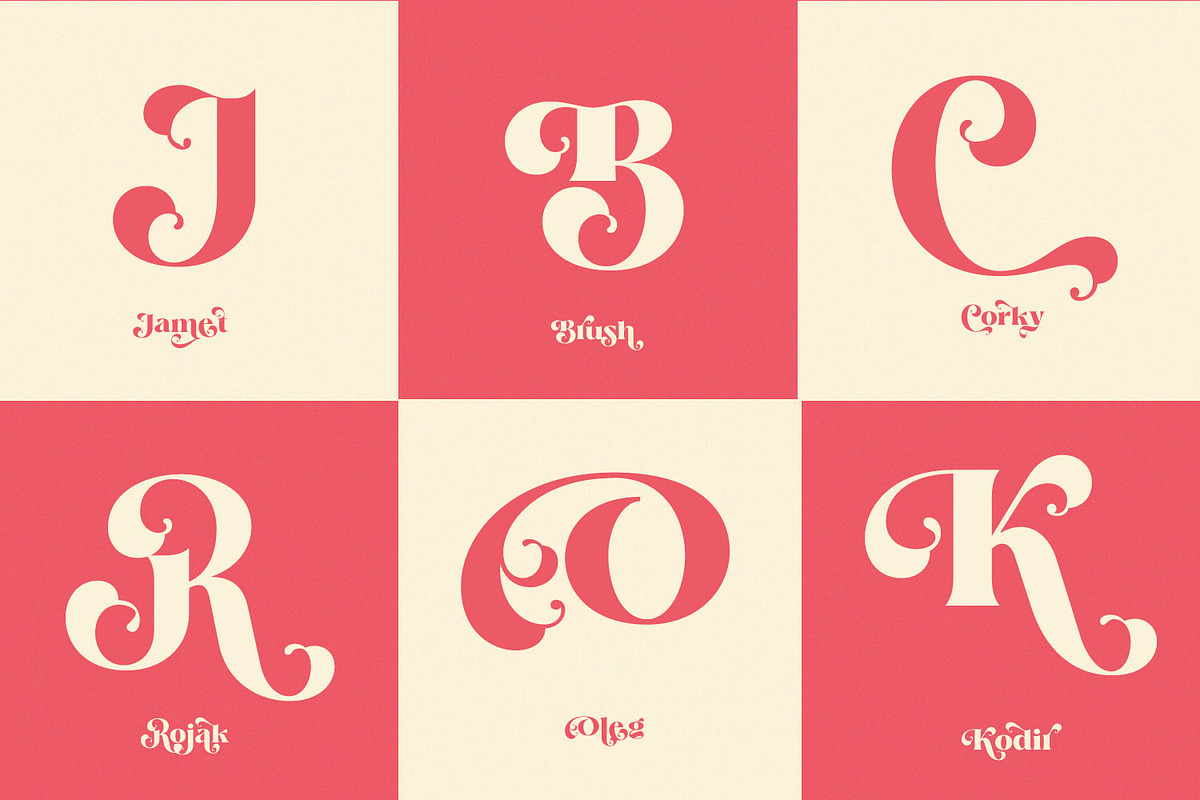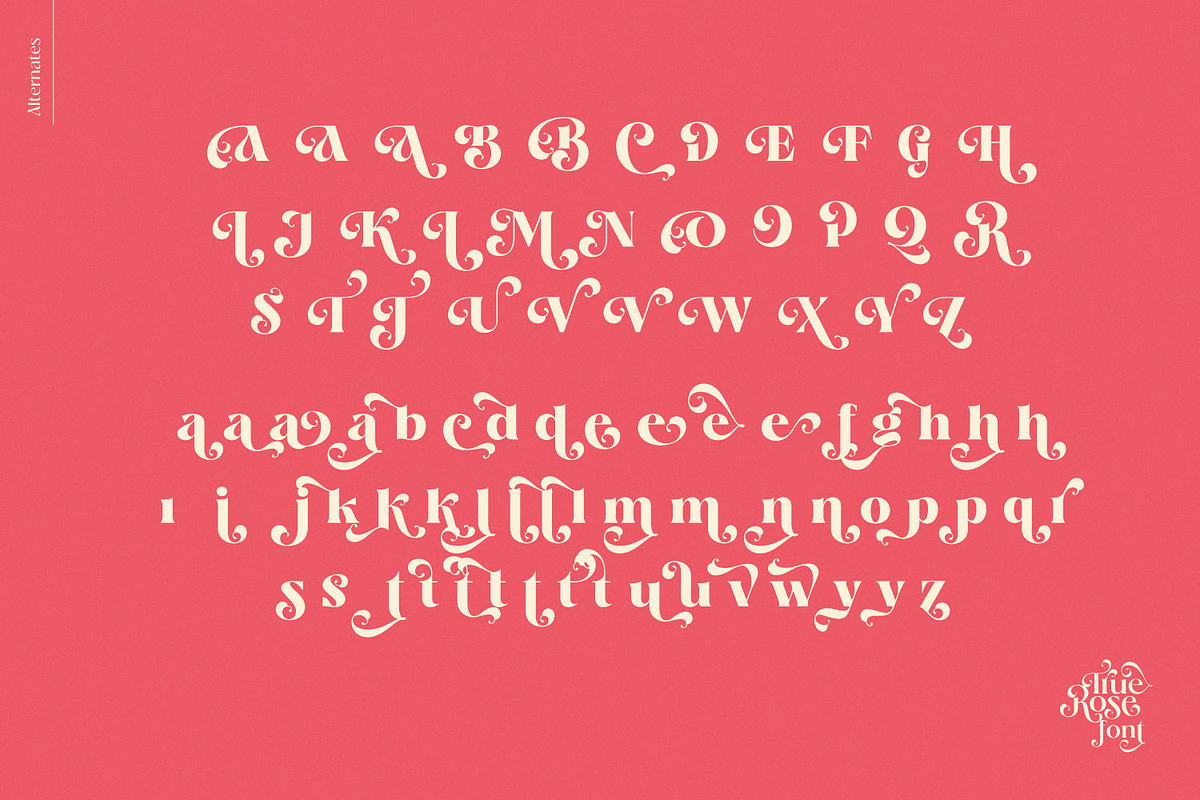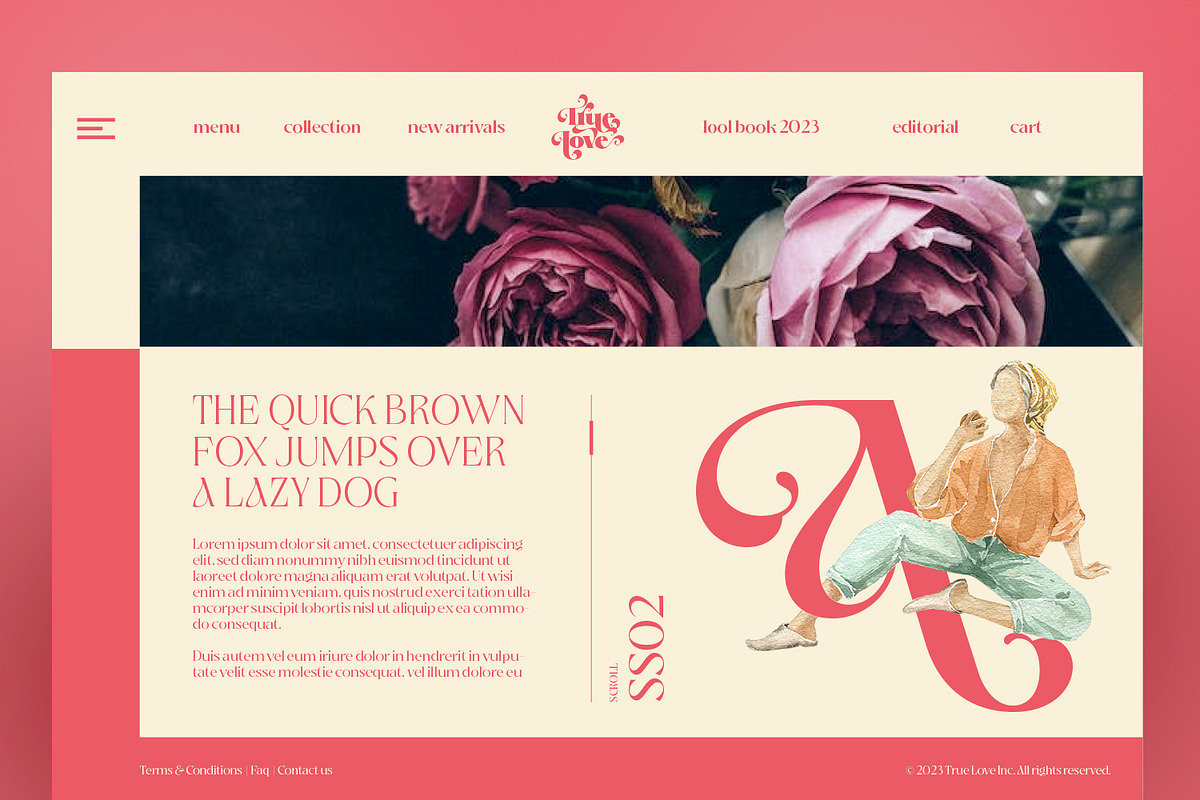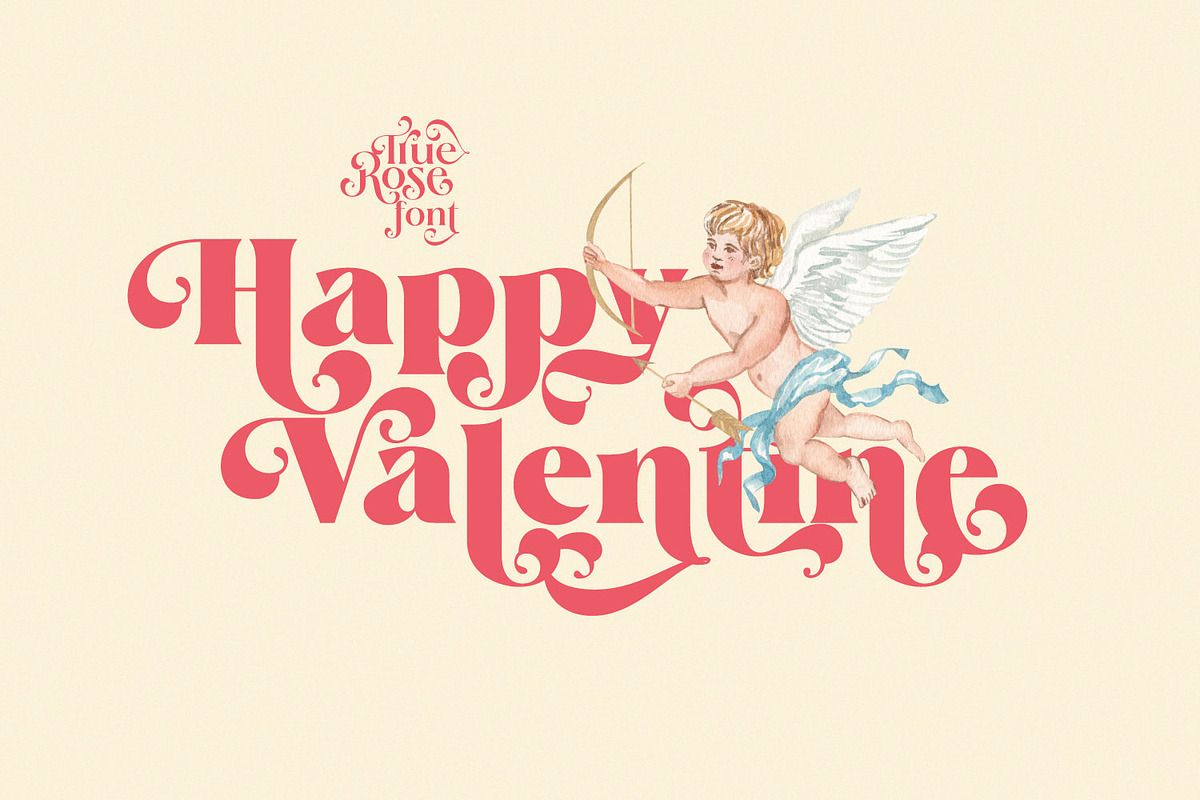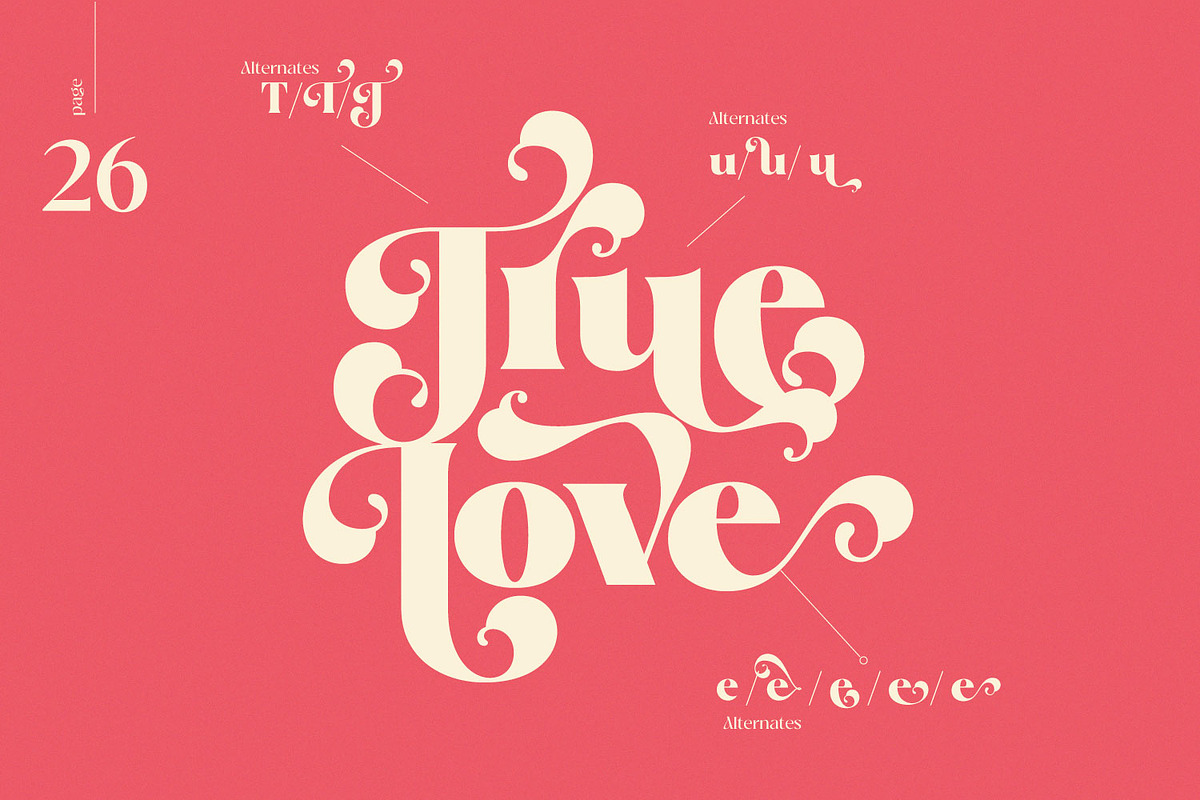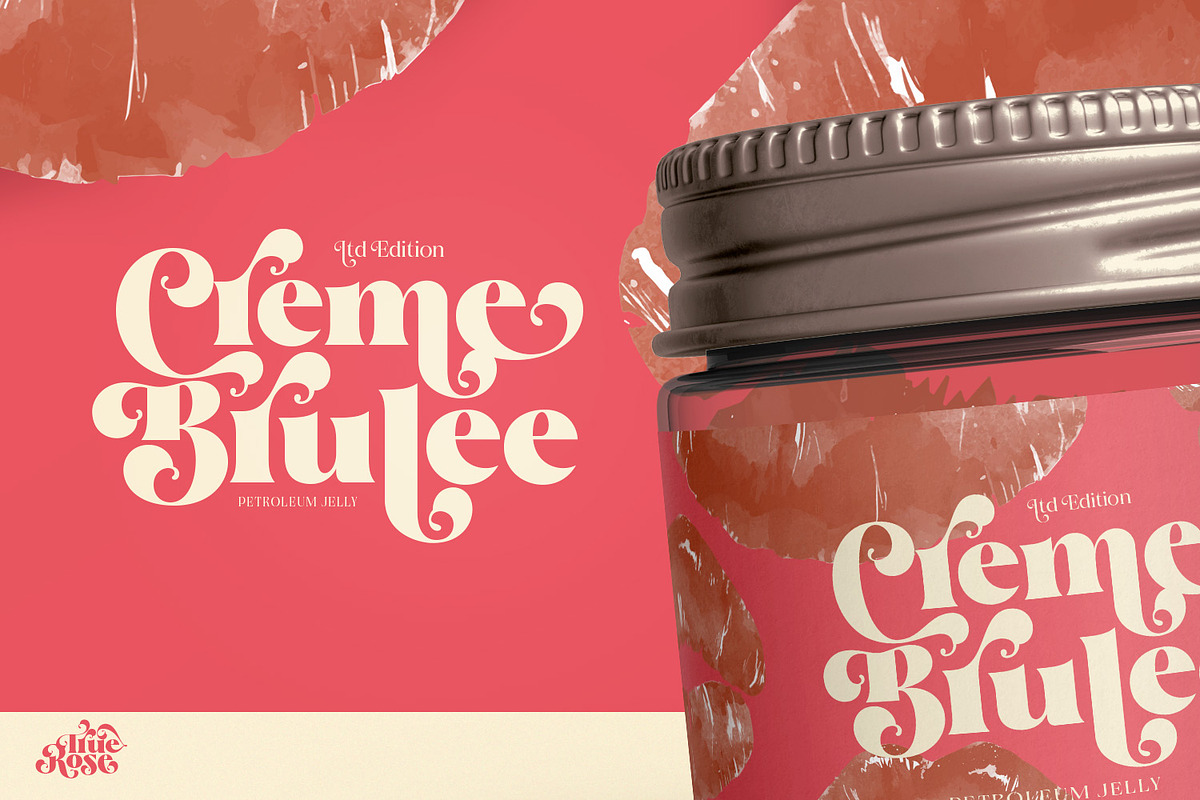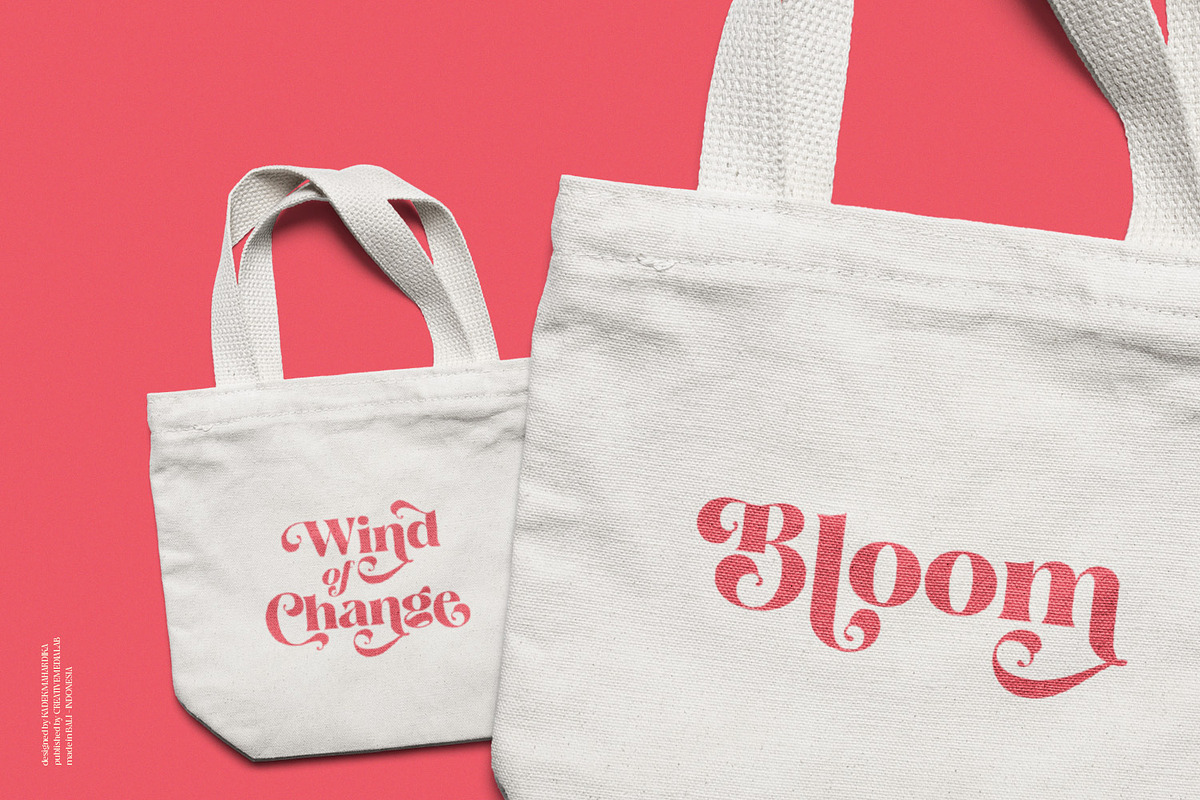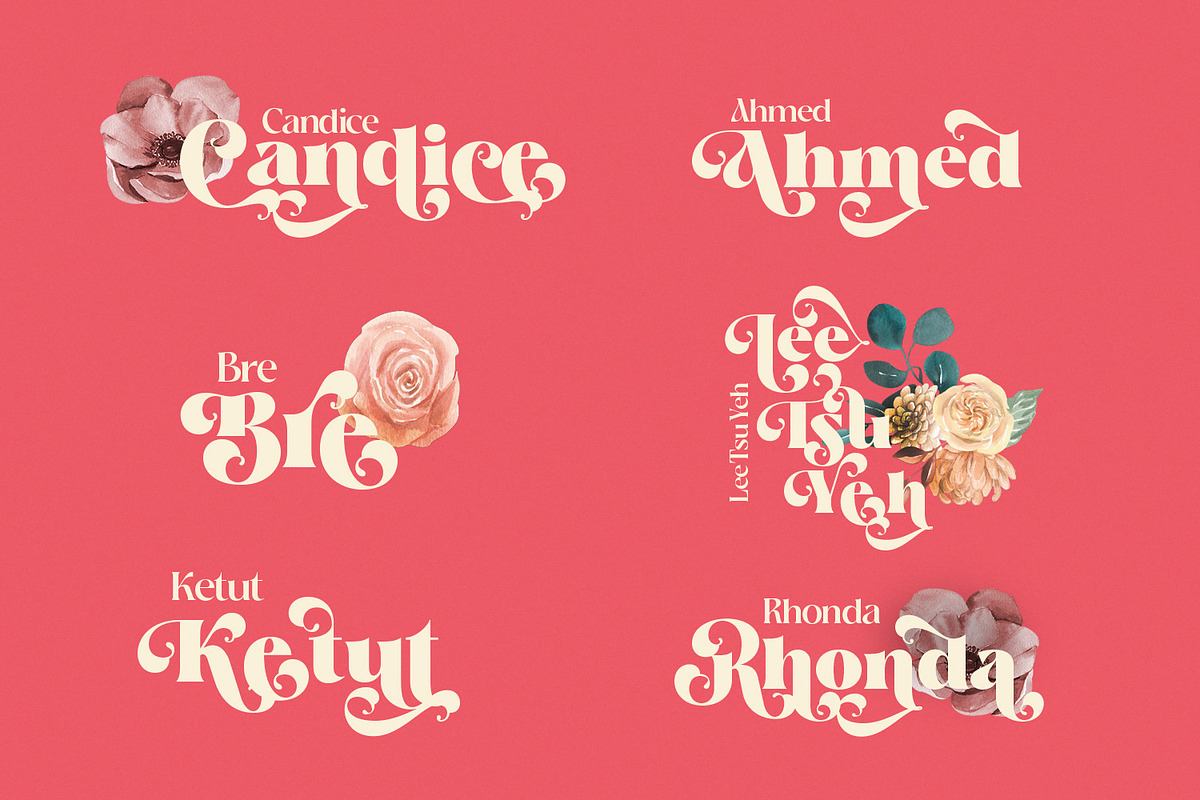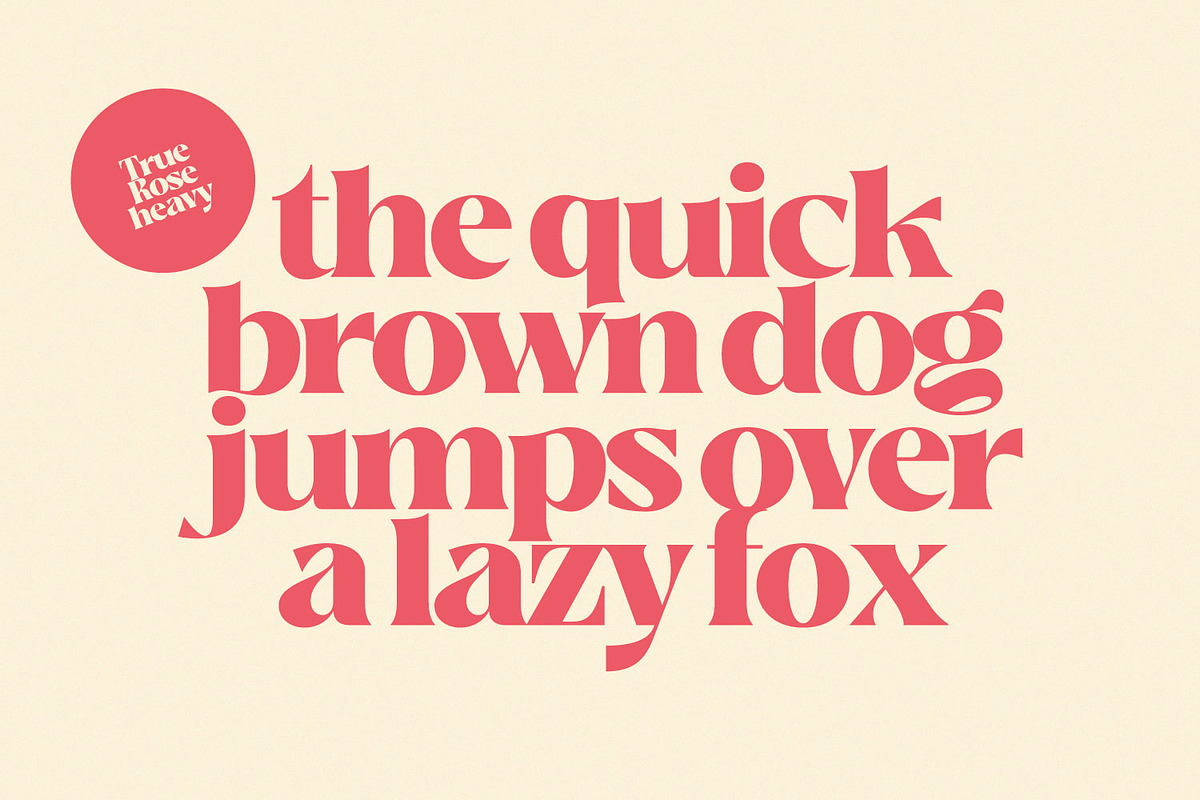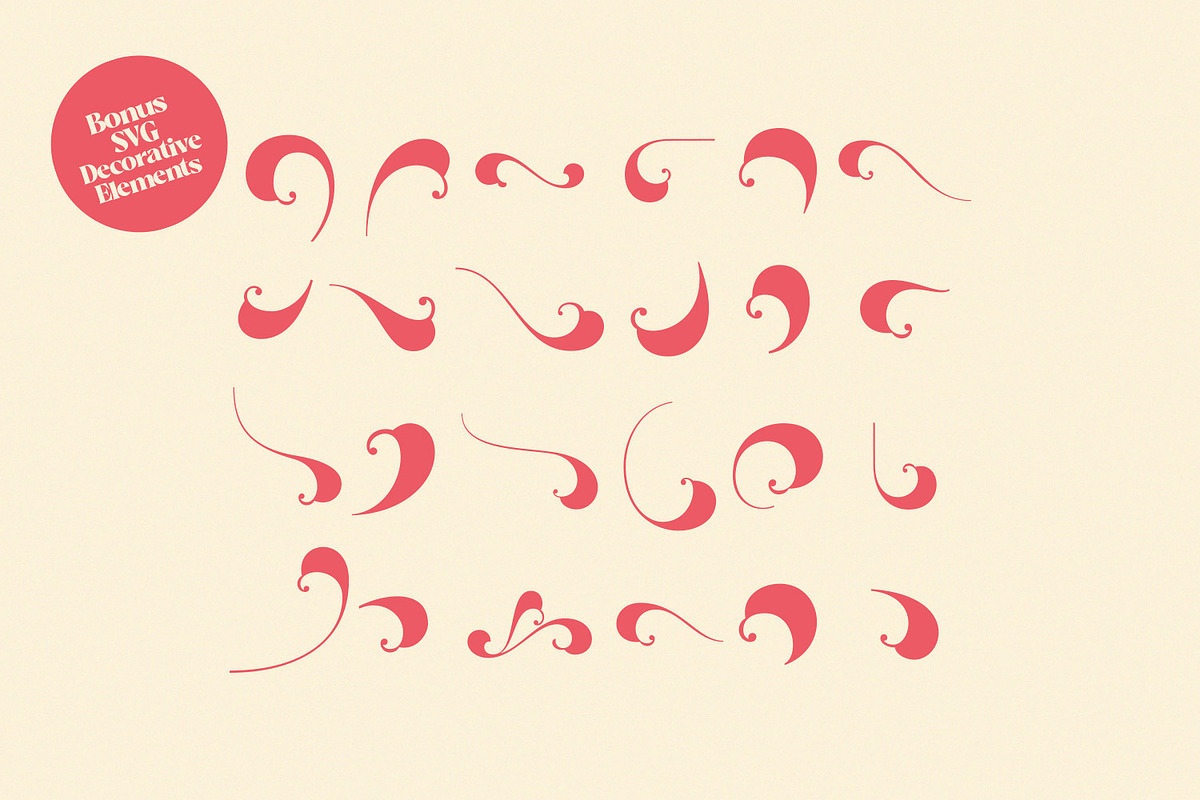
True Rose - Decorative Retro Serif
True Rose is a decorative serif family. It contains seven weights from thin to black and variable format. Vintage retro style combined with simple Victorian ornaments makes the lettering look neat and clean, perfect for your heading, title, or branding projects. Add some SVG ornaments around the empty area to make your design stand out!